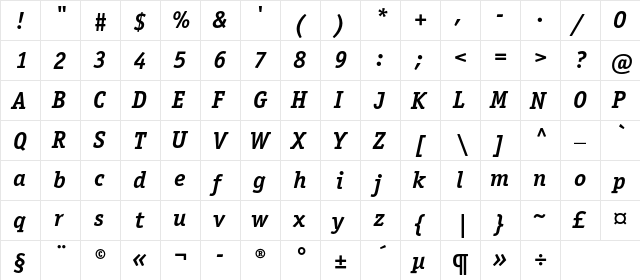
OfficinaSerifBoldC Italic Font Preview
Design Context for OfficinaSerifBoldC Typeface
OfficinaSerifBoldC brings classic typographic sensibility to the table — its serifs and measured letterforms reflect centuries of print heritage. Its italic angle brings a sense of urgency and motion to the letterforms. Its bold stroke weight gives it real presence on the page.